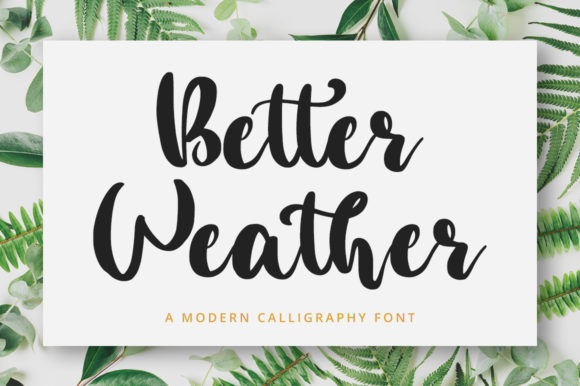
Better Weather Font: Elevate Your Designs with Elegance
The world of typography is vast and diverse, offering a plethora of font styles to suit every design need. Among these, the Better Weather font stands out for its unique blend of elegance and timelessness. This article delves into the characteristics of the Better Weather font, exploring its features, uses, and the impact it can have on your designs.
Introduction to Better Weather Font
Better Weather is a flowing handwritten font that has captured the hearts of designers and typography enthusiasts alike. Its elegant touch and distinct style make it an ideal choice for a wide range of projects, from branding and advertising to personal stationery and digital media.
Key Features of Better Weather Font
- Flowing Handwritten Style: Better Weather boasts a smooth, fluid script that mimics the natural flow of handwriting, adding a personal touch to any design.
- Elegant Touch: The font’s elegant curves and sophisticated lines make it perfect for projects that require a touch of luxury and refinement.
- Distinct and Timeless Style: Its unique character ensures that your designs stand out, while its timeless quality means it won’t go out of style anytime soon.
Uses of Better Weather Font
The versatility of the Better Weather font makes it suitable for a variety of applications. Here are some of the ways you can use this beautiful font:
1. Branding and Logo Design
A brand’s logo is often the first point of contact with its audience. Using Better Weather for your logo can instantly convey elegance and sophistication, setting the tone for your brand’s identity.
2. Advertising and Marketing Materials
From brochures and flyers to social media ads, Better Weather can add a touch of class to your marketing materials, making them more engaging and memorable.
3. Personal Stationery
Elevate your personal stationery, such as wedding invitations, greeting cards, and journals, with the elegant script of Better Weather.
4. Digital Media
Better Weather is also perfect for digital content creators. Use it for video titles, blog headings, or social media posts to add a professional yet personal feel.
Why Choose Better Weather Font?
With so many fonts available, why should you choose Better Weather? Here are a few compelling reasons:
1. Uniqueness
In a sea of generic fonts, Better Weather offers a breath of fresh air with its unique and distinctive style.
2. Versatility
Whether you’re working on a digital project or a print design, Better Weather adapts seamlessly, ensuring your designs look great across different mediums.
3. Emotional Connection
The personal touch of handwritten fonts like Better Weather can create an emotional connection with your audience, making your designs more relatable and engaging.
Tips for Using Better Weather Font Effectively
To get the most out of Better Weather, consider the following tips:
1. Pair with Complementary Fonts
Combining Better Weather with a simple sans-serif font can create a beautiful contrast that enhances your design.
2. Adjust Letter Spacing
Tweaking the letter spacing can help improve readability and ensure your text looks elegant and refined.
3. Use it for Headings and Highlights
Better Weather shines in headings and highlights. Use it to draw attention to key messages or to add visual interest to your designs.
Better Weather font is a versatile and elegant addition to any designer’s toolkit. Its unique style, combined with its versatility and emotional appeal, makes it an excellent choice for a wide range of projects. By incorporating Better Weather into your designs, you can elevate your work, connect with your audience on a deeper level, and create truly memorable pieces.